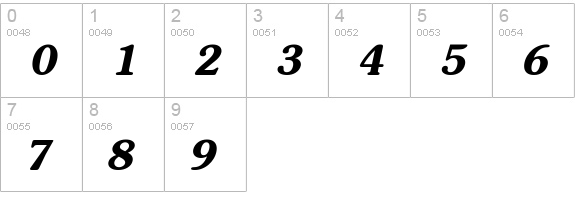
AG_Souvenir Bold Italic Font Details
AG_Souvenir Bold Italic is a strong, high-contrast, italic variant in the AG_Souvenir typeface family \xE2\x80\x94 well suited to headlines, attention-grabbing titles, and strong calls-to-action.
AG_Souvenir Bold Italic is a stunning and versatile font that exudes elegance and sophistication. Perfect for adding a touch of style to any design project, this font features bold and italicized characters that demand attention. The sleek curves and sharp lines of AG_Souvenir Bold Italic make it a standout choice for headlines, logos, and branding materials. The best part? AG_Souvenir Bold Italic is available for free download at FontsMarket.com. You can easily add this beautiful font to your collection without any cost, making it a valuable addition to your design toolkit. Whether you're working on a professional project or a personal creation, AG_Souvenir Bold Italic is sure to elevate your designs with its distinctive aesthetic. Download it today and let your creativity shine with this exceptional font.